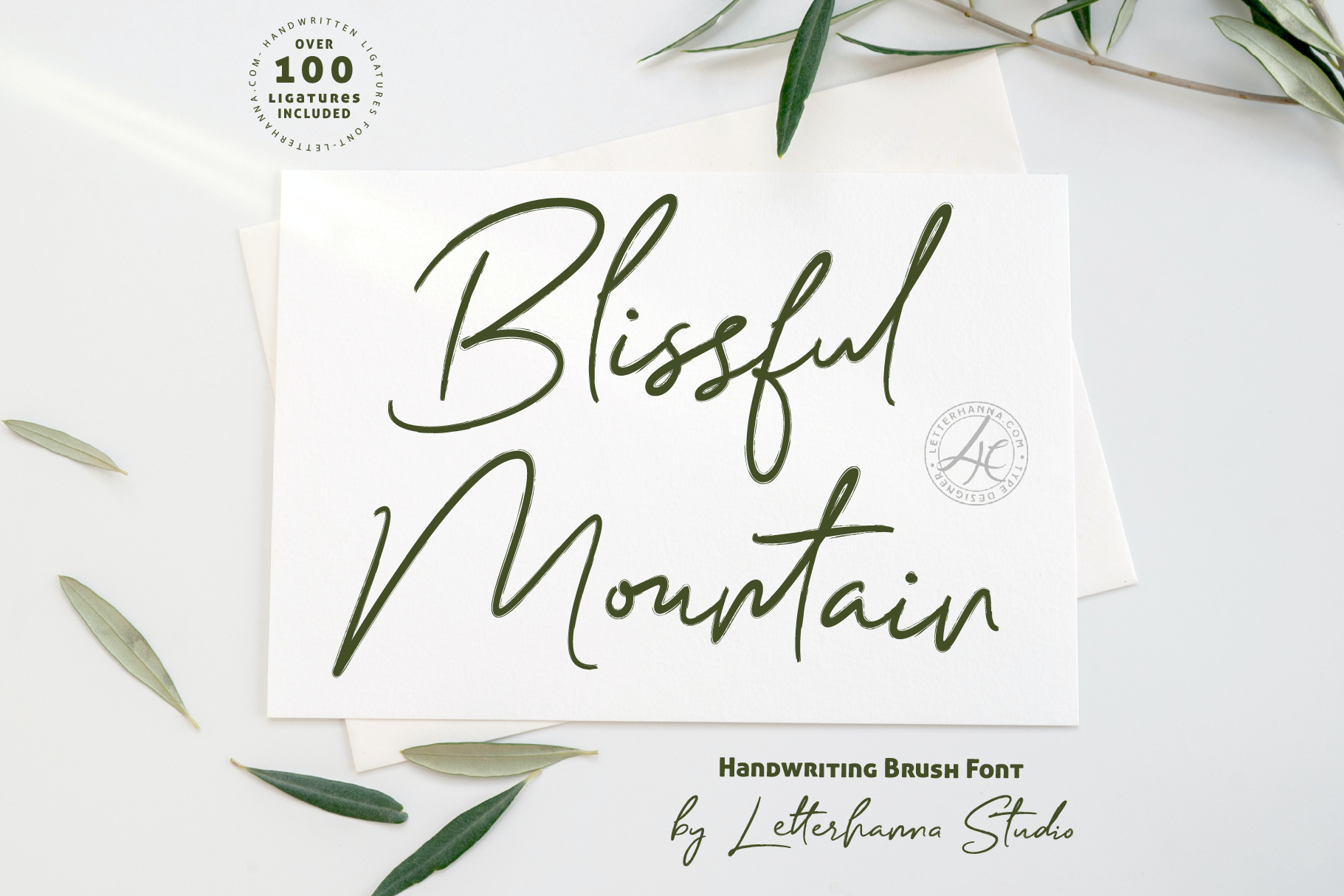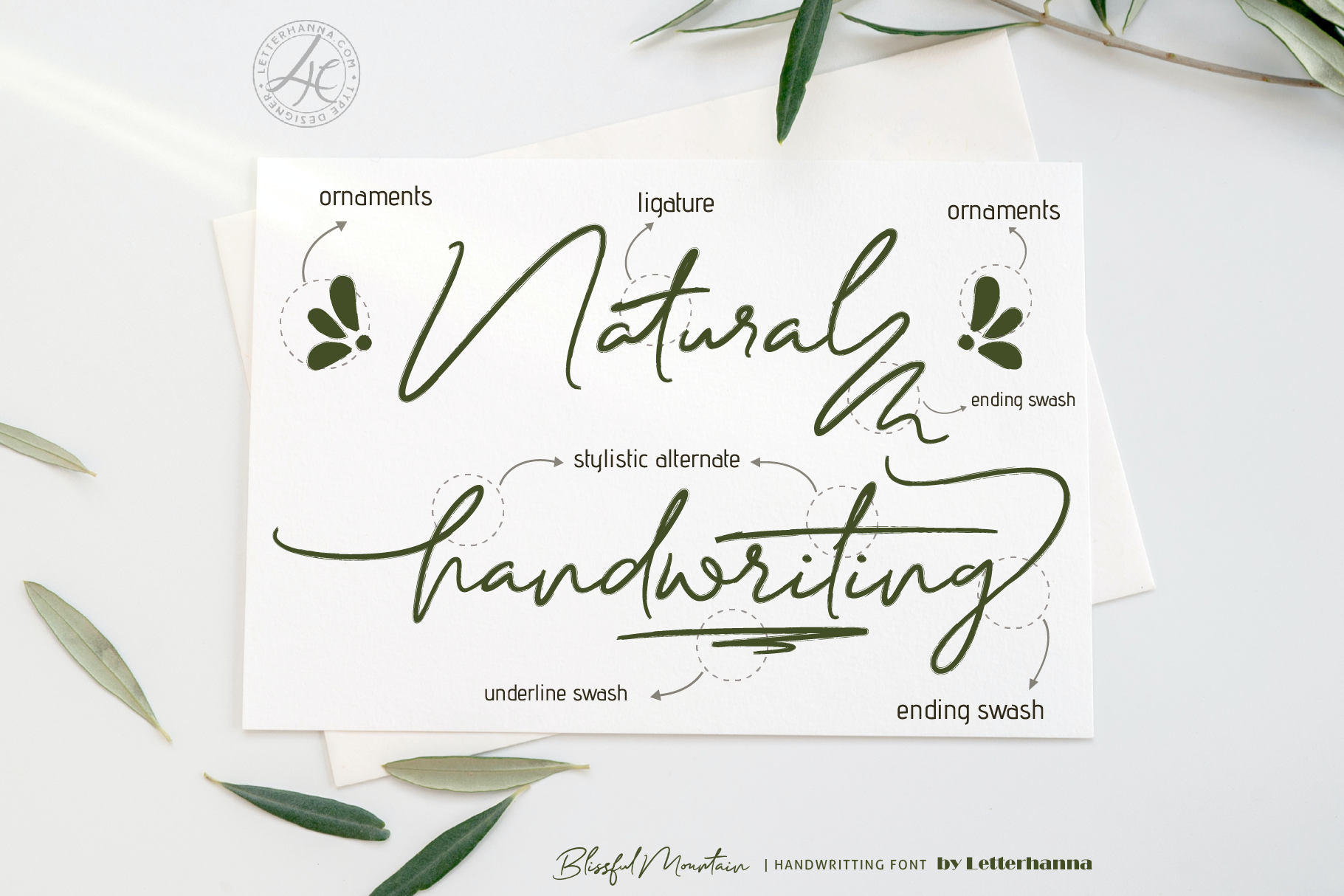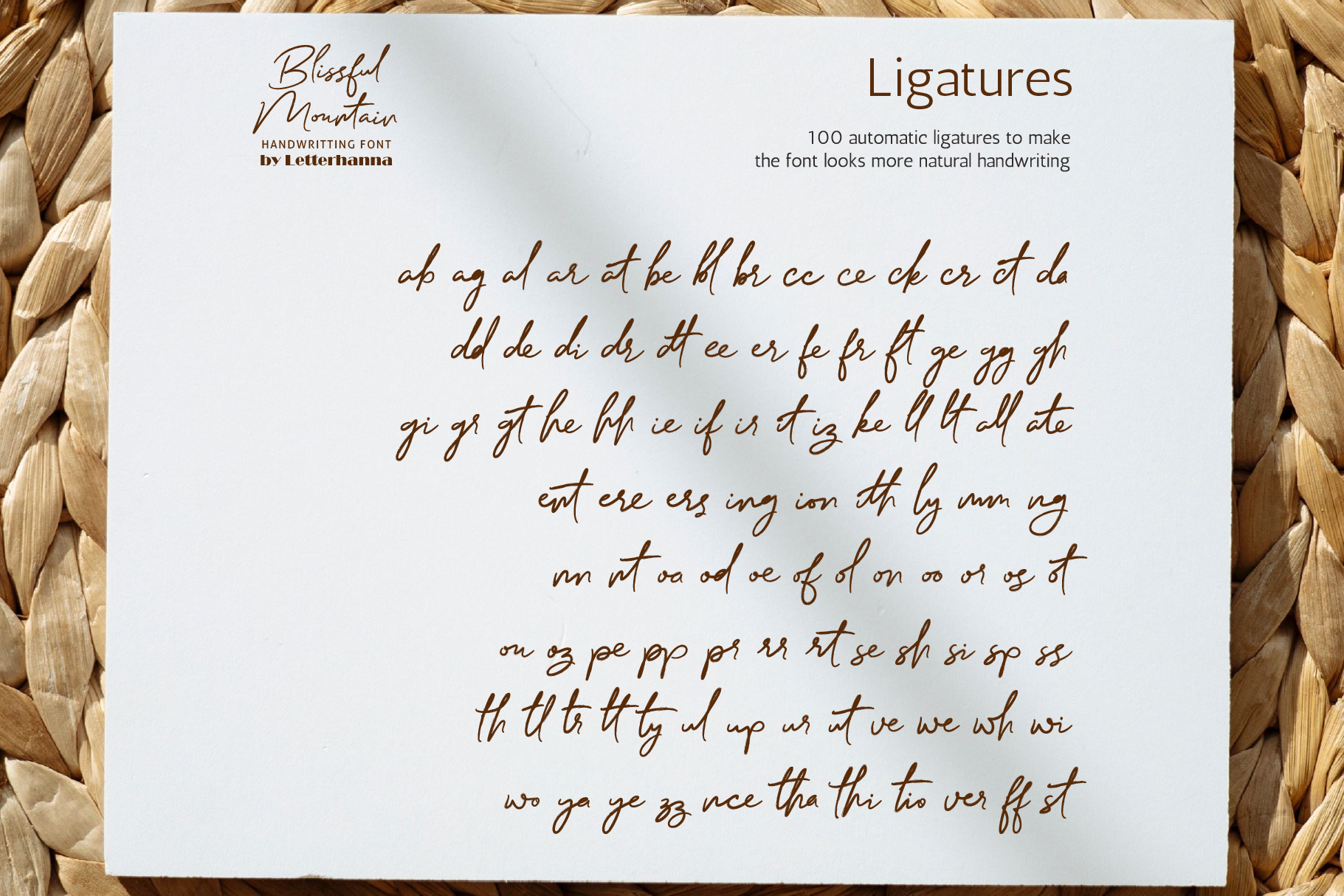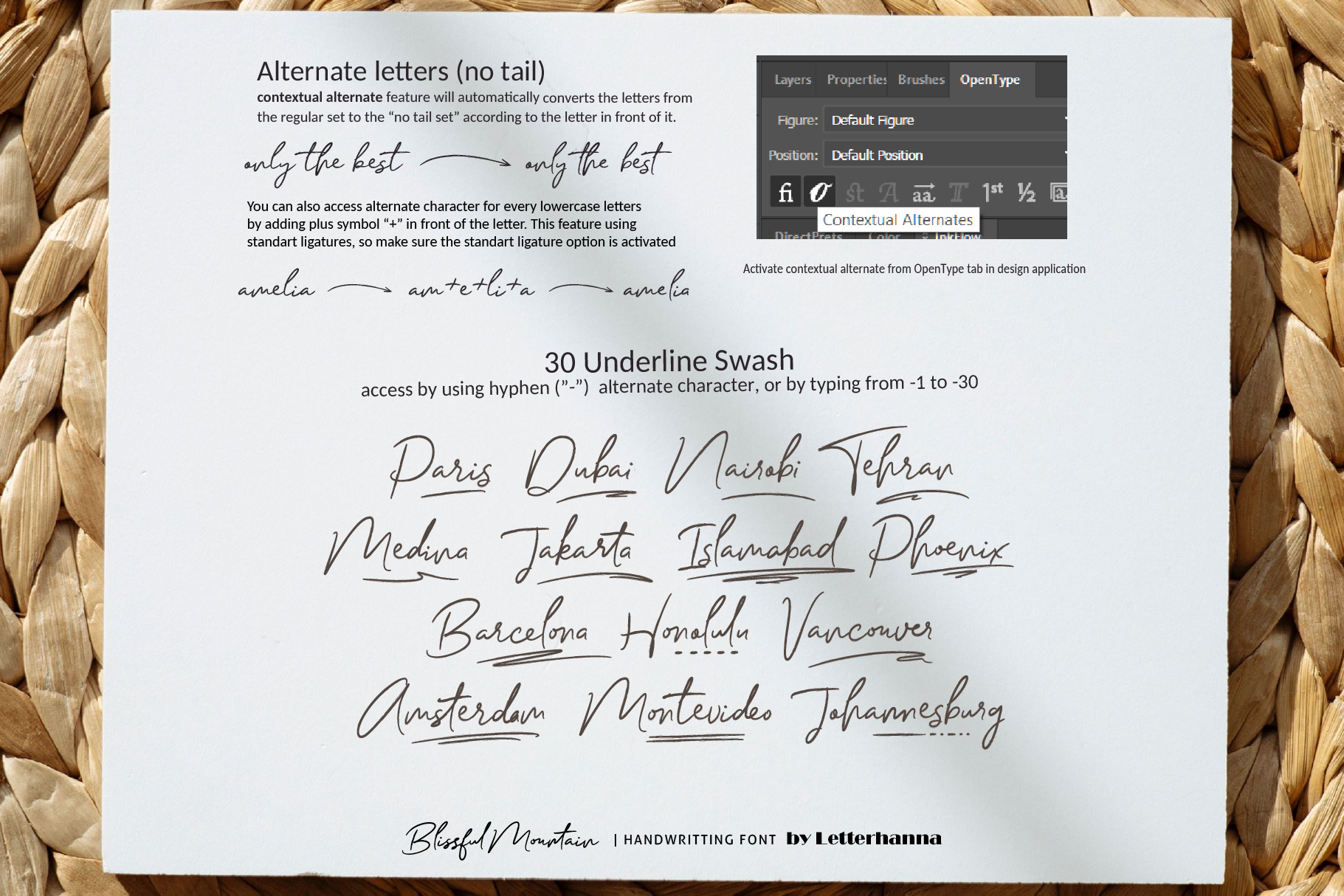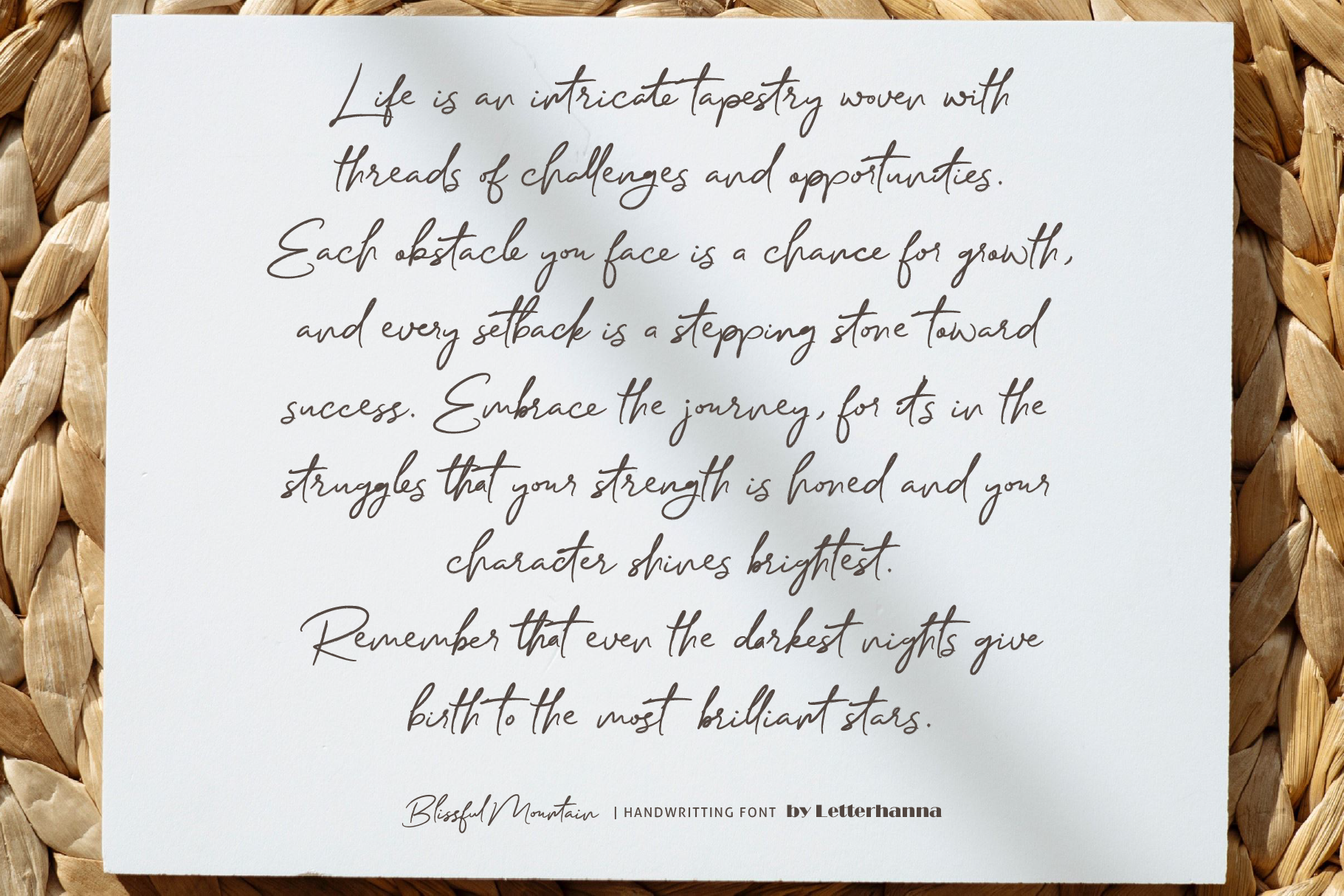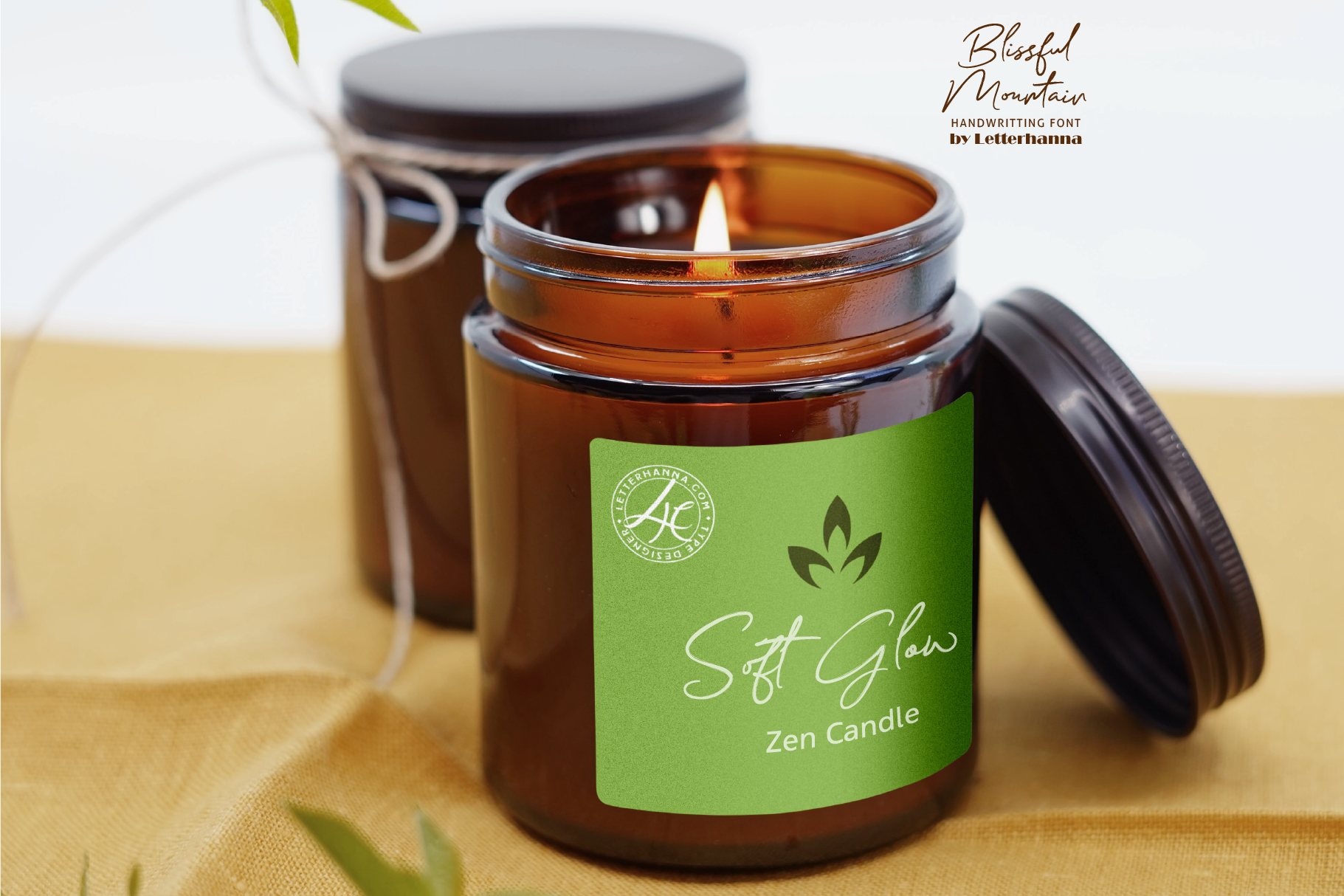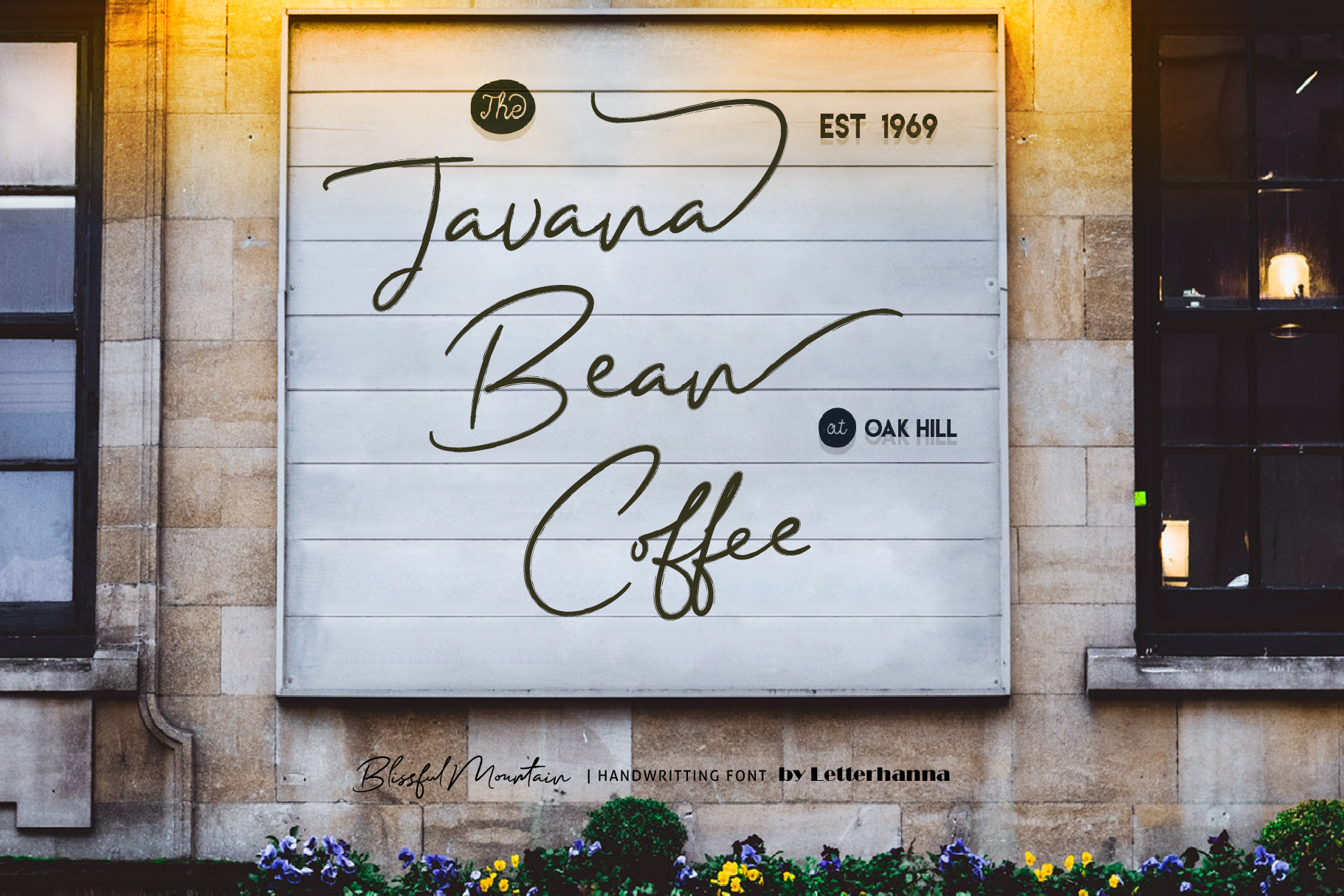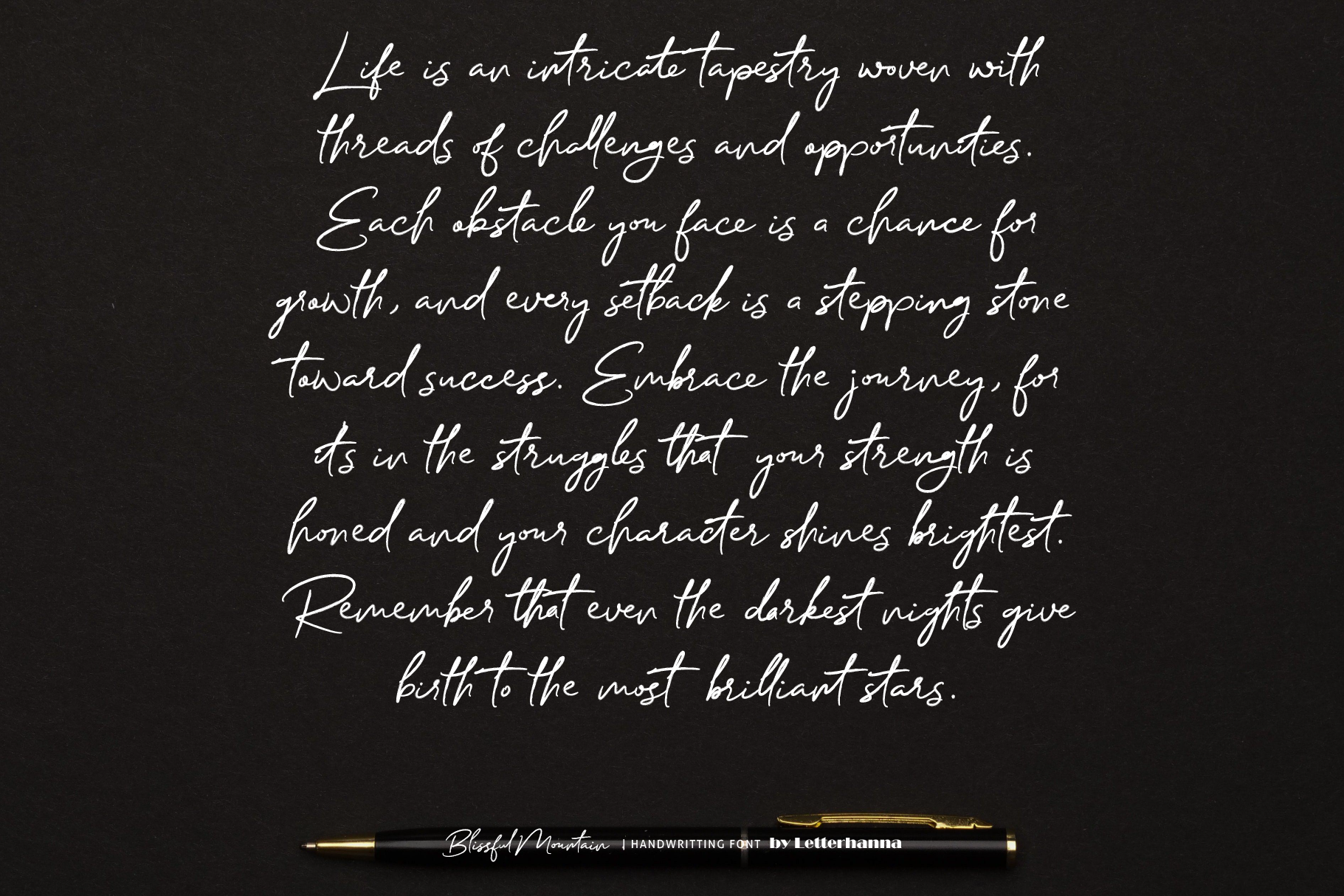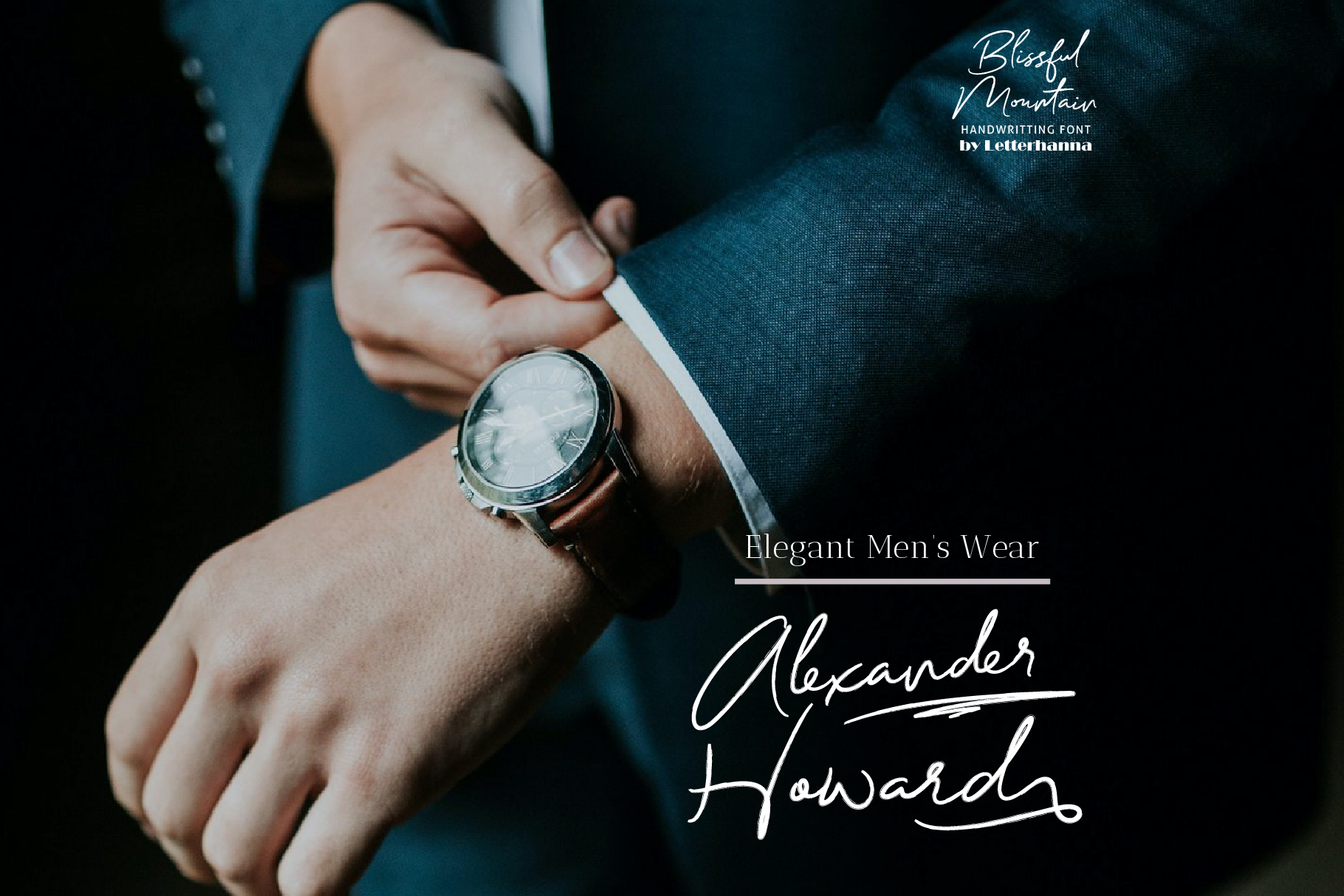
Introducing “Blissful Mountain,” a captivating brush script font that invites you to embark on a journey to serenity. With its graceful strokes and artistic flair, this font encapsulates the essence of tranquility found in the heart of majestic mountains. Each character is meticulously designed to convey the peaceful and blissful aura of nature’s grandeur.
“Blissful Mountain” is not just a font; it’s an invitation to explore the beauty and harmony of handwritten script. Whether you’re crafting invitations, designing branding materials, or seeking to infuse your projects with a touch of natural wonder, this font will transport your audience to a serene landscape where every word becomes a breathtaking peak of expression.
Experience the artistry of “Blissful Mountain” and let your creativity reach new heights amidst the tranquil slopes of handwritten elegance.
Easy access all alternate glyphs, swashes, ornaments and underlines just by using ligatures, you can try yourself in the font preview tool.
You can get alternate glyphs for all 26 lowercase character using ligature features, just Type plus symbol ( + ) in front of the letters that you want to change to the alternate short tail glyph. Type plus a ( +a ) than you can get alternate short tail glyph for the letter a.
Some letters have more than one alternate, just add “number two” character (2) behind the letters. For example, type +f2, +g2, +h2, +t2 or +j2
Underline swashes can be access by type hyphen symbol “-” then followed by number 1 to 30, for example type -3, -22 or -17 etc to get various different underline swashes.
Head/beginning swashes can be access by type dollar symbol “$” then followed by number 1 to 9, for example type $2 or $8 to get various different head/beginning swashes.
Tail/ending swashes can be access by type percent symbol “%” then followed by number 1 to 30, for example type %3 or %15 etc to get various different tail/ending swashes.
Ornaments can be access by type at symbol “at” then followed by number 1 to 26, for example type @4 or @13 etc to get various different ornaments.
– Uppercase and Lowercase letters
– Numbering and Punctuations
– Multilingual Support
– Ligatures
– Beginning and ending swashes
– Underline swashes
– Stylistic alternate
– Ornaments
– Easy access swash just by using ligatures